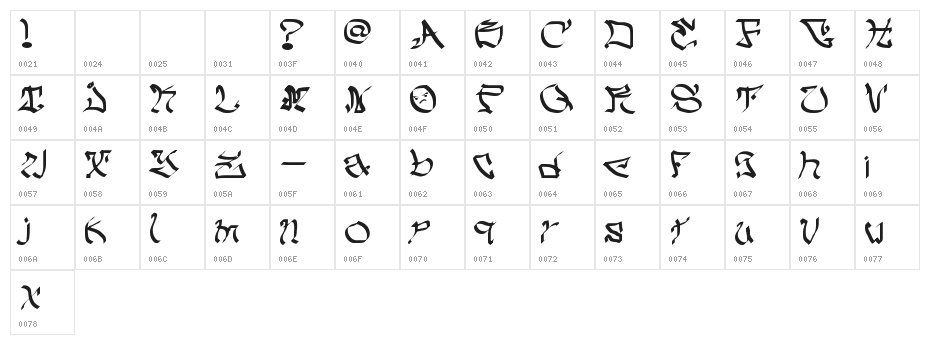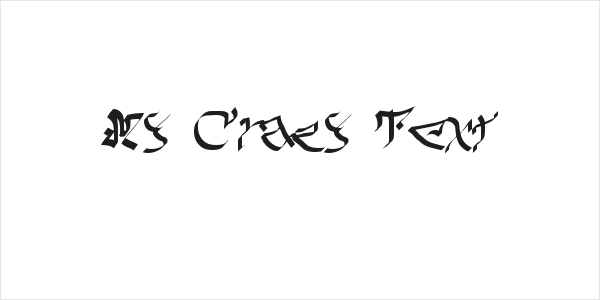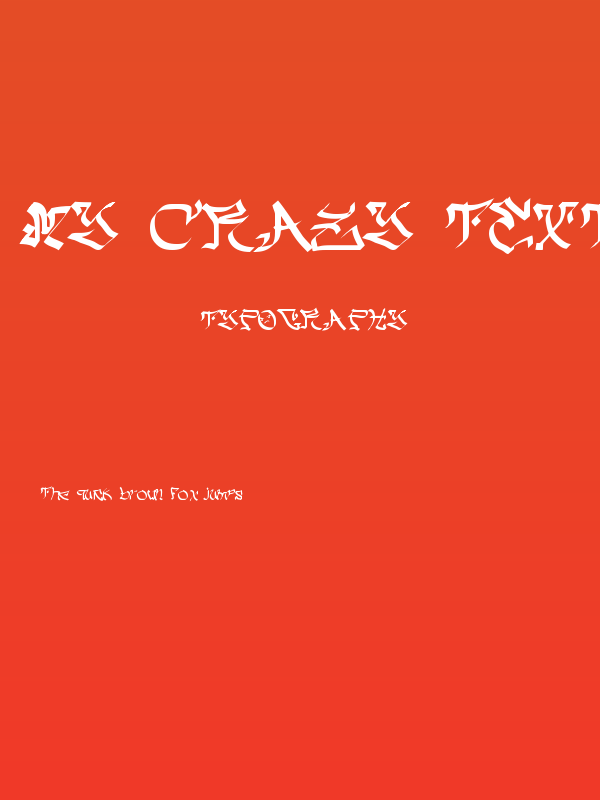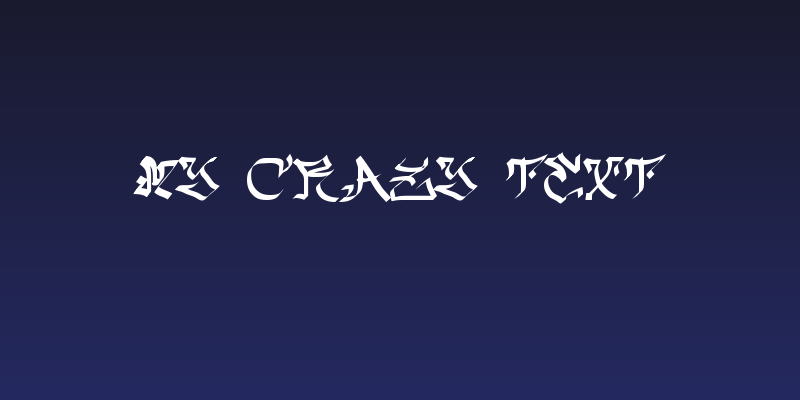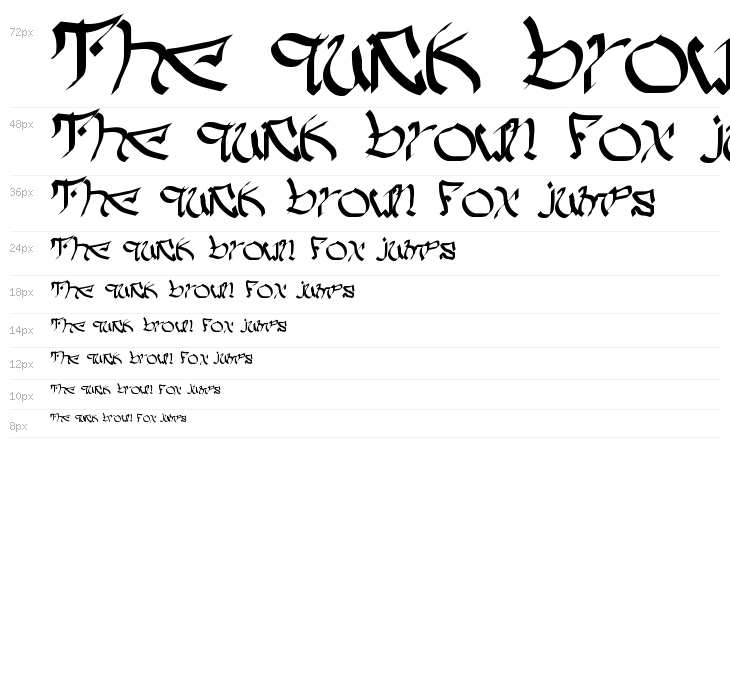
My Crazy Text Font
My Crazy Text Description
This font features a highly decorative and intricate design, characterized by sharp, angular lines and a bold presence. The uppercase letters exhibit a unique blend of gothic and modern styles, with exaggerated serifs and dramatic flourishes. The lowercase letters maintain the same stylistic elements, offering a cohesive look throughout. The numbers are presented in a bold, blocky style, adding to the font's overall impact. Special characters are designed with the same attention to detail, ensuring they complement the alphabetic characters seamlessly. This font is ideal for projects that require a strong visual statement, such as posters, album covers, or branding for edgy, contemporary brands.
| Overall Style | Modern, Gothic, Decorative |
| Proposed Projects | Ideal for posters, album covers, edgy branding, and any project needing a strong visual impact. |